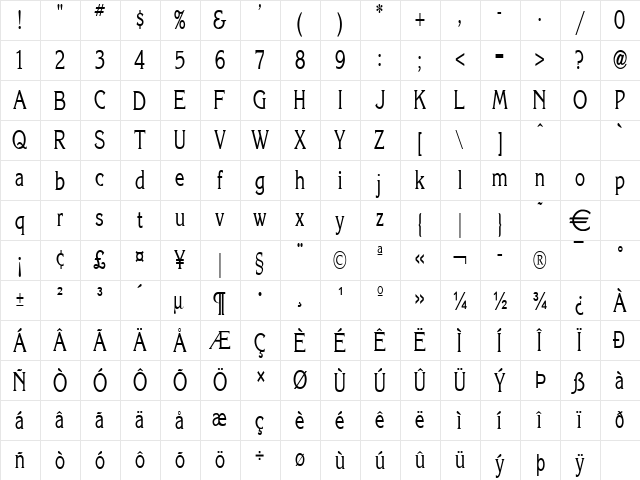
KeiraThin Normal Font Preview
KeiraThin Normal
Design Context for KeiraThin Typeface
KeiraThin takes a measured approach to typography — its balanced proportions and neutral character make it a reliable workhorse for both digital and print work. Its slender proportions lend an understated elegance to any composition.